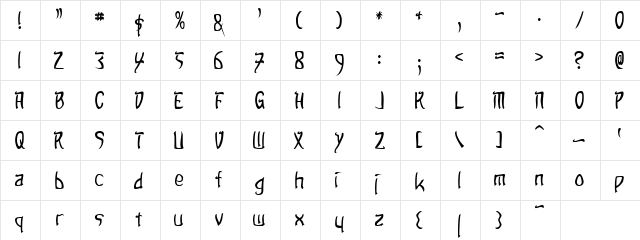
Sands of Fire Normal
Design Context for Sands of Fire Typeface
Sands of Fire is a composed and adaptable typeface that performs quietly and consistently across a wide range of design contexts.